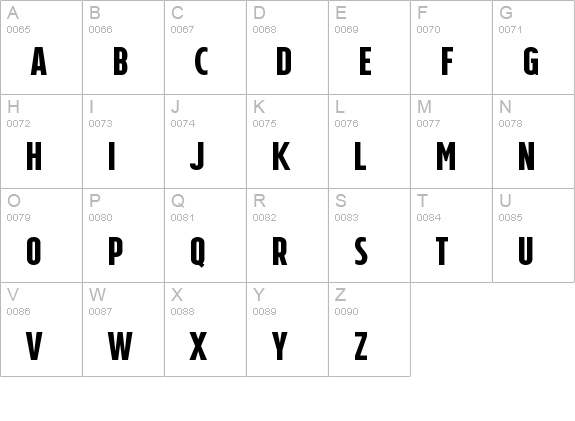
Tolyer Bold no.4 is a strong, high-contrast variant in the Tolyer typeface family \xE2\x80\x94 well suited to headlines, attention-grabbing titles, and strong calls-to-action.
Introducing Tolyer Bold no.4 font - a striking and versatile typeface that demands attention with its bold and dynamic presence. This contemporary font exudes confidence and strength, making it perfect for headlines, logos, posters, and other design projects that require a bold statement. The Tolyer Bold no.4 font features clean lines and sharp edges that give it a modern and sleek aesthetic. Its bold weight commands attention and ensures that your message stands out with impact. Whether you're looking to make a bold statement or add a touch of sophistication to your design, this font has you covered. What's even better is that Tolyer Bold no.4 font is available for free download at FontsMarket.com. This means you can easily access this powerful typeface and incorporate it into your projects without any hassle. Don't miss out on the opportunity to elevate your designs with this striking font - download Tolyer Bold no.4 today and unleash your creativity!